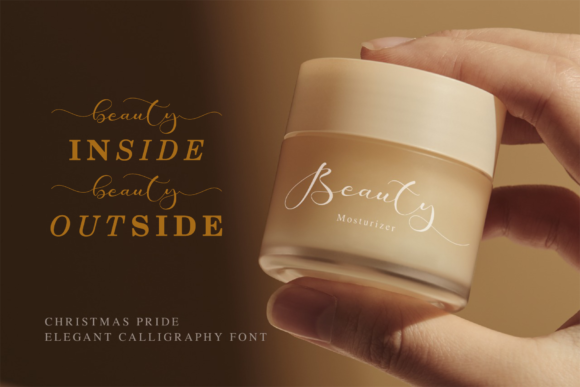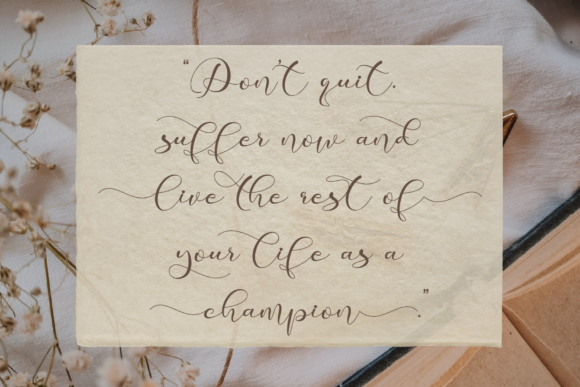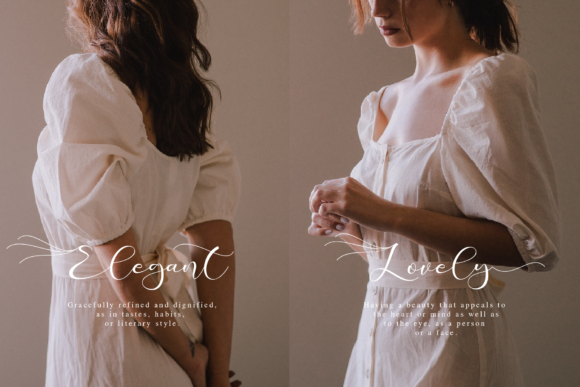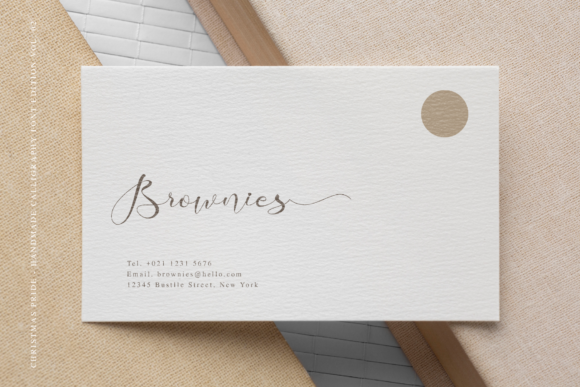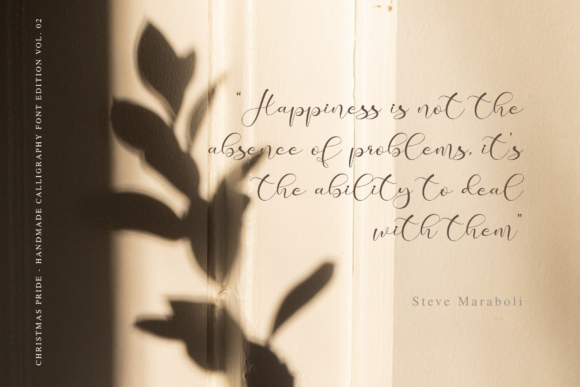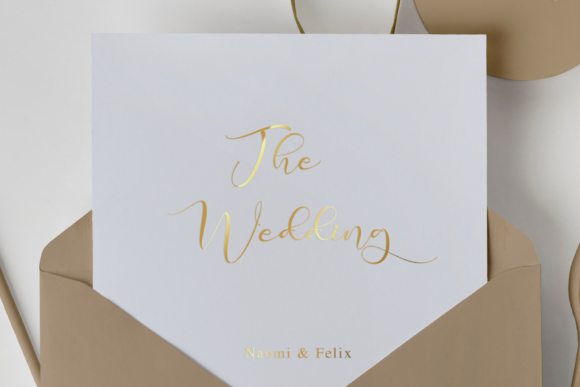
Unwrap the Magic of Christmas Pride Font
As a designer, there’s nothing quite like the rush of creativity that comes with brainstorming new ideas for holiday projects. It’s the perfect time to get cozy with your favorite fonts and let your imagination run wild. For me, it all starts with the perfect font – one that’s elegant, flowing, and full of character. And that’s exactly what the Christmas Pride Font delivers.
This beautiful handwritten font is designed to add a touch of sophistication to any design project, from invitations and greeting cards to social media graphics and website headers. With its well-balanced characters and PUA encoding, the Christmas Pride Font is a valuable tool for any designer looking to add a personal touch to their holiday projects.
Whether you’re a seasoned pro or just starting out, the Christmas Pride Font is sure to become your new go-to for all things holiday design.
Christmas Pride Font Key Features
- Font Family: Christmas Pride is a custom-designed font family.
- Character Count: This font family includes a wide range of characters, including uppercase and lowercase letters, numbers, and special characters.
- Unique Characteristics: The font features a unique, festive design with intricate details and ornaments, perfect for adding a touch of holiday magic to your designs.
Designer Review: Christmas Pride Font
I recently had the chance to work with the Christmas Pride Font, and I must say it’s a unique addition to any holiday design project ✨. The font’s playful, cursive style captures the festive spirit of Christmas perfectly, making it ideal for greeting cards, social media graphics, or even a holiday logo.
One of the standout features of Christmas Pride Font is its versatility ✨. It can be used for both traditional and modern holiday designs, thanks to its elegant yet whimsical feel. The font’s bold lines and ornaments make it perfect for creating eye-catching titles and headings, while its cursive script is great for body text.
While Christmas Pride Font is a great addition to any holiday design project, it does have some limitations ⚠️:
- Limited character set: The font only includes uppercase and lowercase letters, as well as a few punctuation marks. This means you may need to use a different font for numbers, symbols, or other characters.
- No ligatures: The font doesn’t include ligatures, which can make it difficult to create smooth connections between letters.
- Not ideal for small text: Due to its ornate design, Christmas Pride Font may not be the best choice for small text, as it can become difficult to read.
Overall, I think Christmas Pride Font is a great choice for holiday designs, especially if you’re looking for a playful, cursive font ✨. While it has some limitations, its versatility and unique design make it a valuable addition to any designer’s toolkit.
For the best results, use the Christmas Pride Font in conjunction with other festive elements, such as holly, snowflakes, or Christmas trees.
Experiment with different font sizes, colors, and styles to create a unique and eye-catching design.
Consider using the font in combination with bold or italic text for added emphasis.
The Christmas Pride Font is ideal for:
Creating festive invitations and greeting cards.
Designing holiday menus and recipes.
Developing Christmas-themed social media graphics and ads.
Adding a touch of holiday cheer to business presentations and reports.